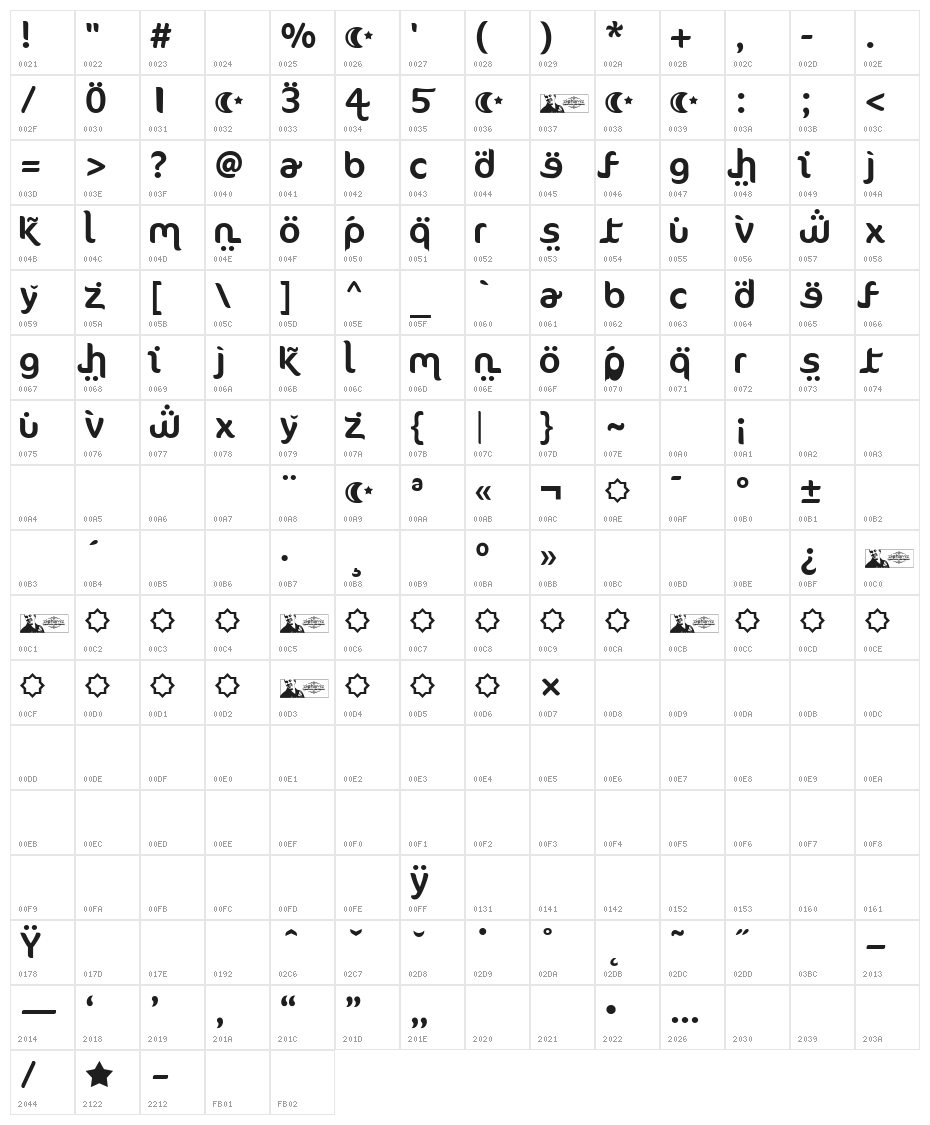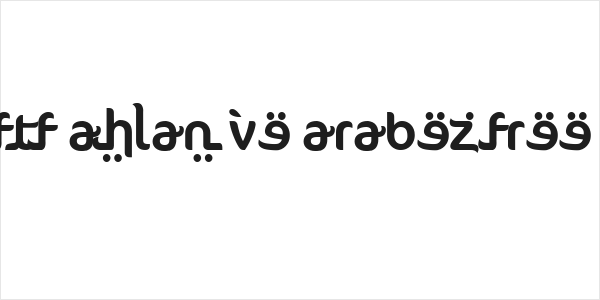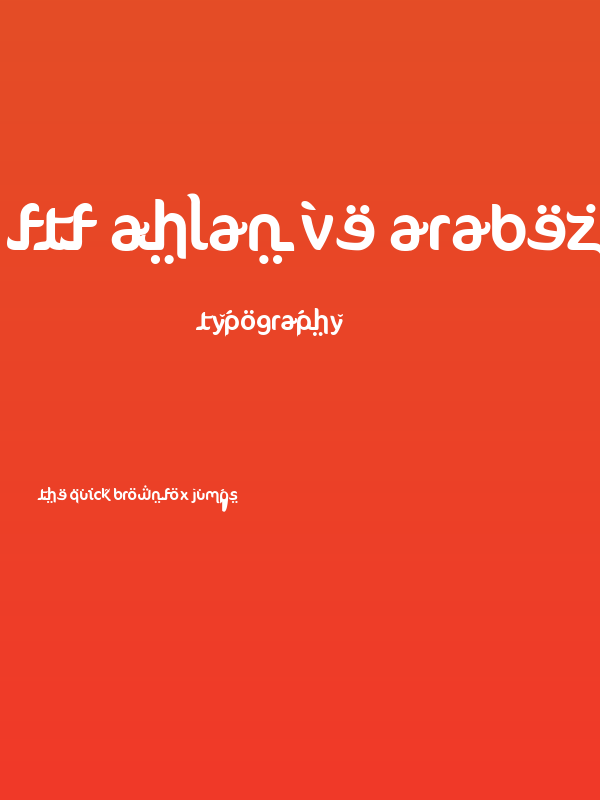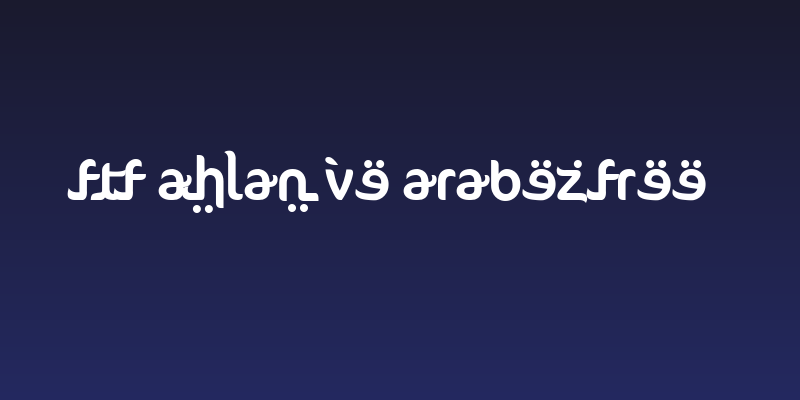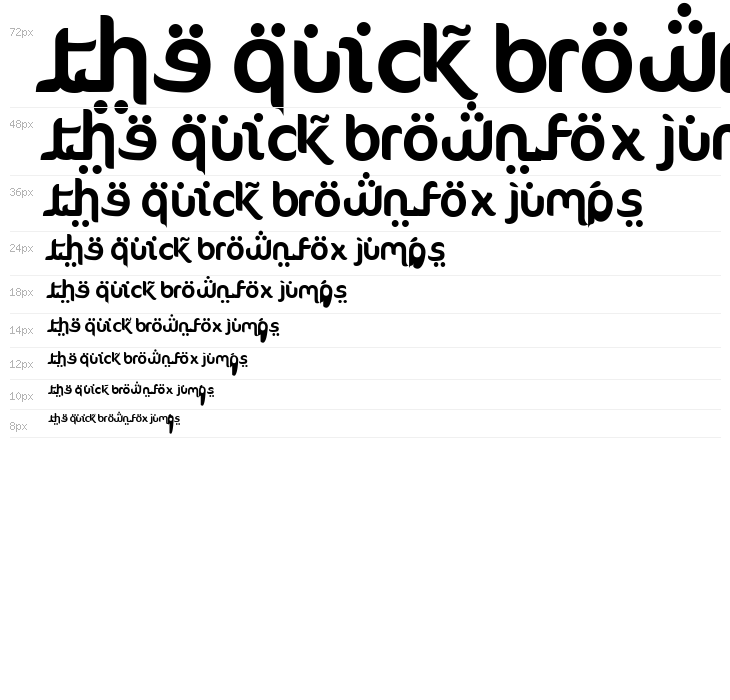
FTF Ahlan Ve Arabez FREE Font
FTF Ahlan Ve Arabez FREE Description
This font features a unique blend of modern and traditional elements, characterized by its rounded, flowing letterforms and distinctive diacritical marks. The characters exhibit a playful yet sophisticated style, with smooth curves and a consistent stroke width that enhances readability. The font includes a full set of lowercase and uppercase letters, numerals, and a variety of special characters, making it versatile for different design needs. Its design is particularly suited for projects that require a touch of cultural flair, as it incorporates elements reminiscent of Arabic script influences, while maintaining a clear and legible structure.
| Proposed Projects | Ideal for branding, cultural event posters, modern art projects, and any design requiring a unique, sophisticated touch. |